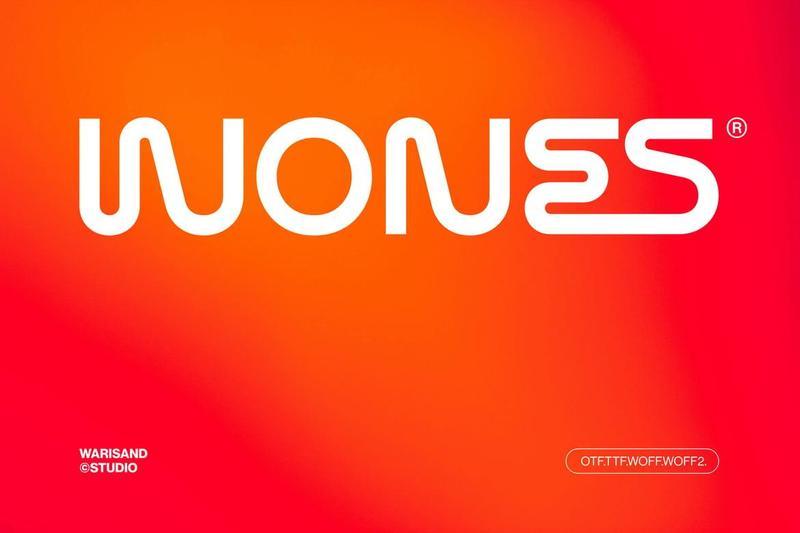
Wones – Modern Font 6VYQDSJ
**Wones** is a modern logo font with a clean futuristic look, created for brands that need a bold and digital identity. Its smooth rounded structure, square-inspired cuts, and tech-style letterforms make it perfect for technology branding, startup logos, gaming titles, digital products, and futuristic visual systems. Wones brings a professional balance between clean readability and strong visual impact, making every design feel modern, premium, and memorable.
Designed for high-impact creative projects, Wones works beautifully for movie posters, animation titles, gaming interfaces, tech logos, digital campaigns, and bold brand headlines. This font gives designers a futuristic voice with a sleek and confident style, making it a great choice for any project that needs to look advanced, clean, powerful, and ready for the future.
Designed for creatives who want stylish, functional, and flexible typography for business identities, promotional materials, and standout visual projects.